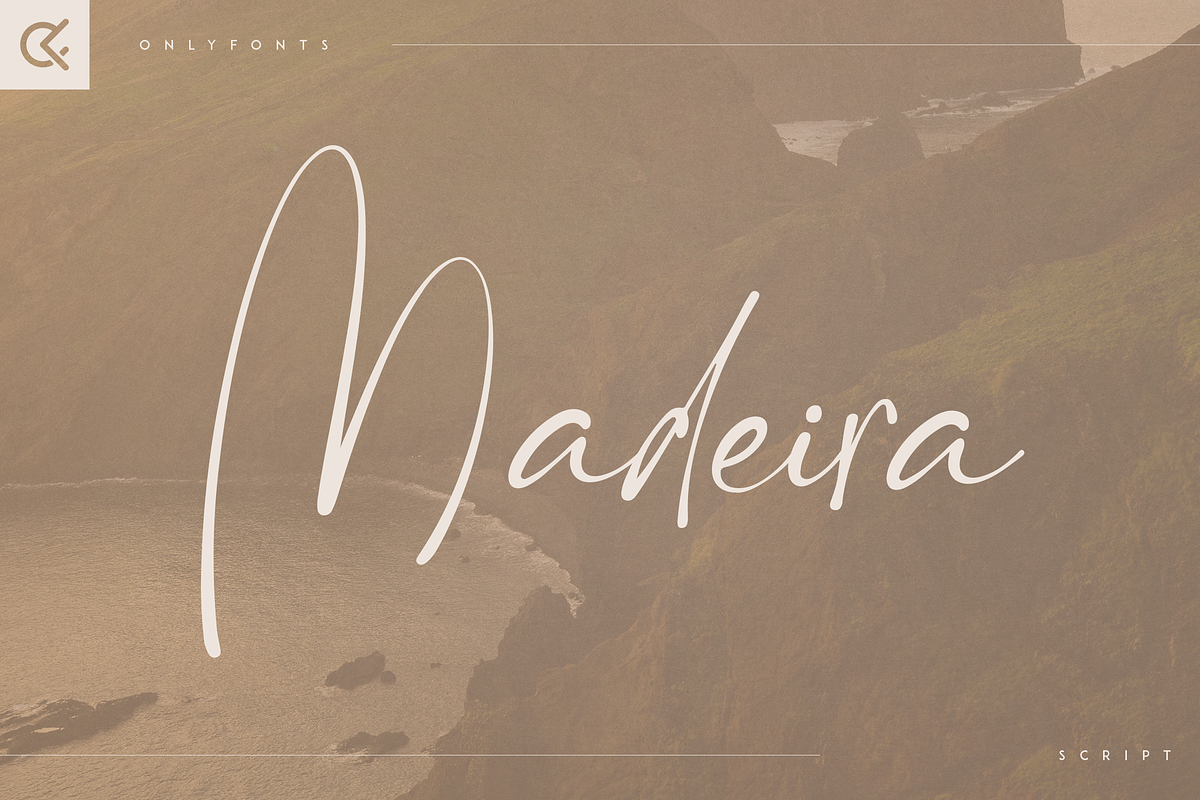
Madeira - handmade script font Free Download
Madeira - Handmade Script Font Free Download is a charming, handcrafted typeface that captures the essence of natural handwriting with an artistic twist. Perfect for greeting cards, logos, wedding invites, product packaging, and social media content, this font brings warmth and personality to every design it touches.
Madeira - Handmade Script Font Free Download features smooth, flowing curves and a relaxed, organic feel—ideal for projects that need a personal, authentic vibe. Whether you're working on lifestyle branding or heartfelt messages, Madeira adds a creative, handmade touch. Download it today and see how this beautiful script can elevate your next project with ease.